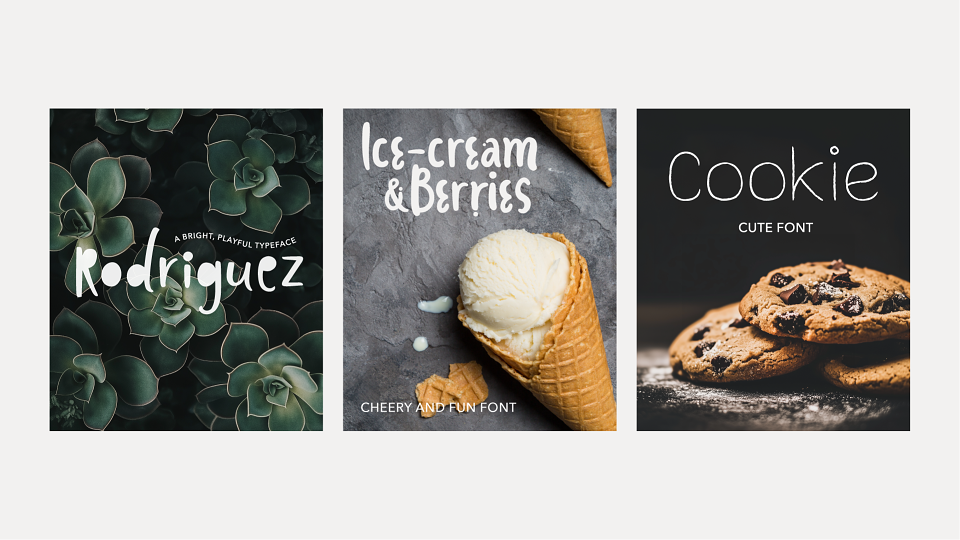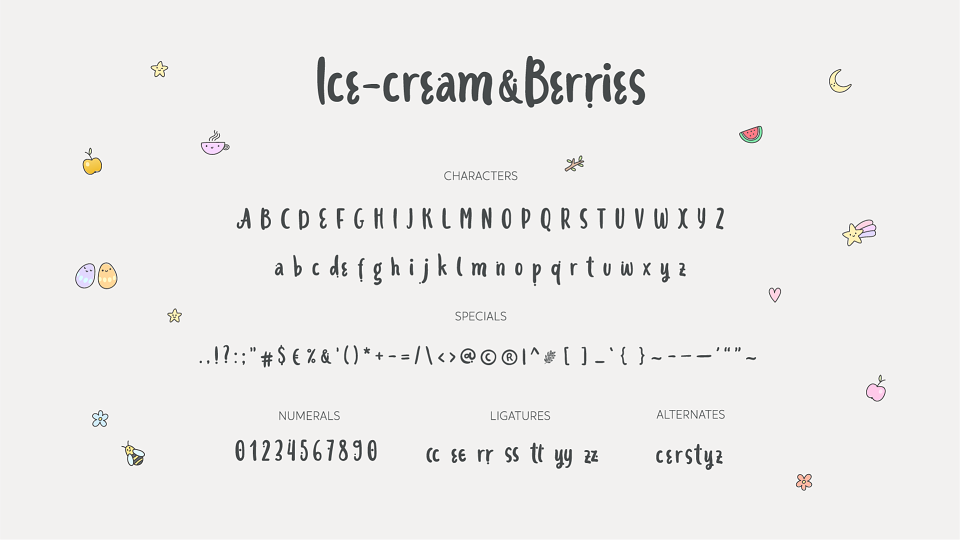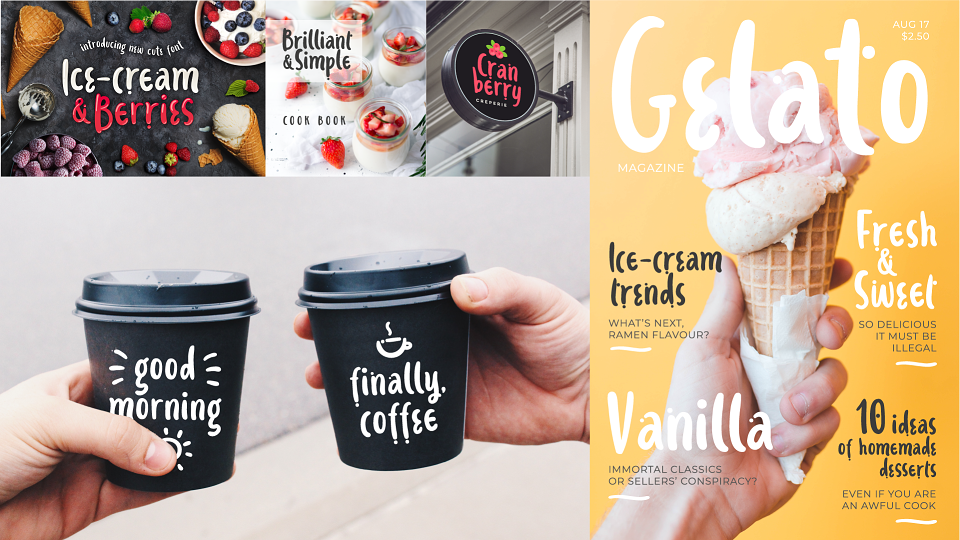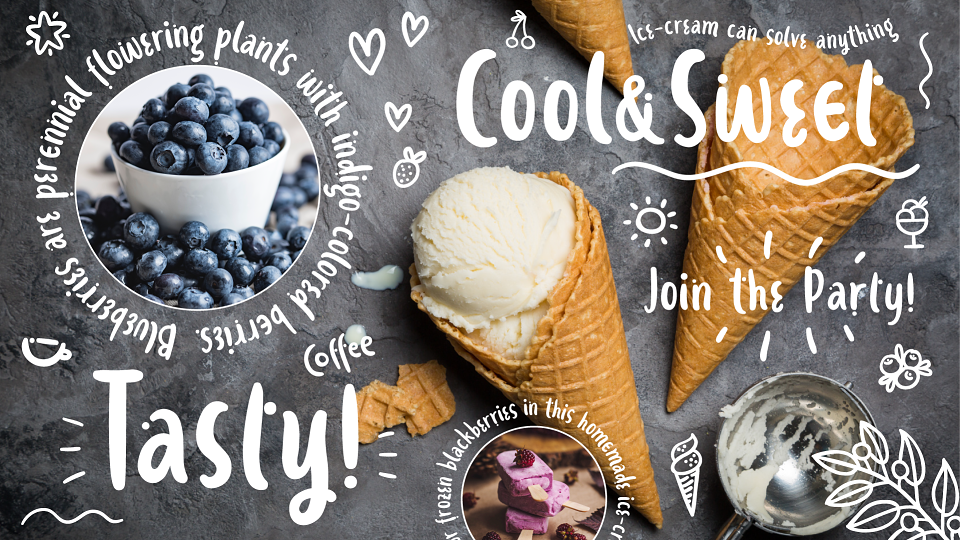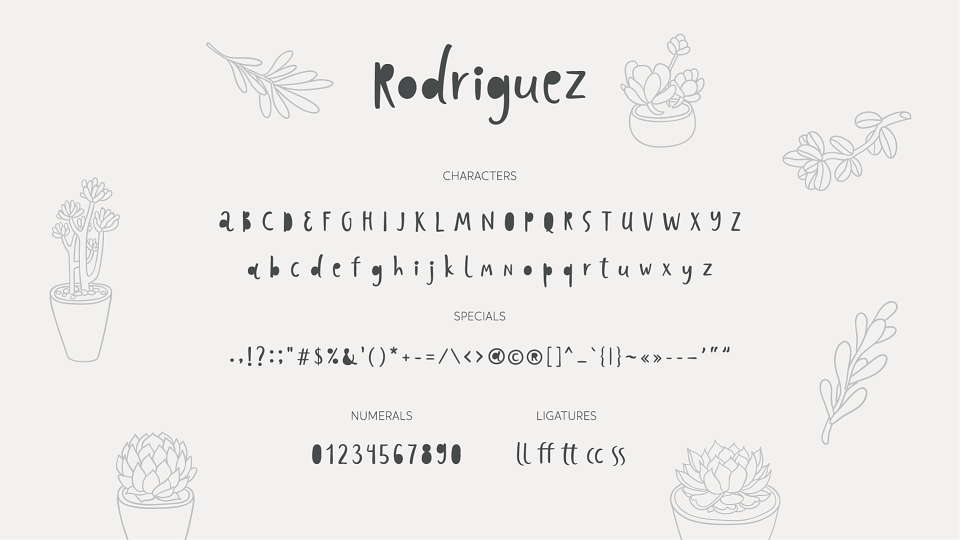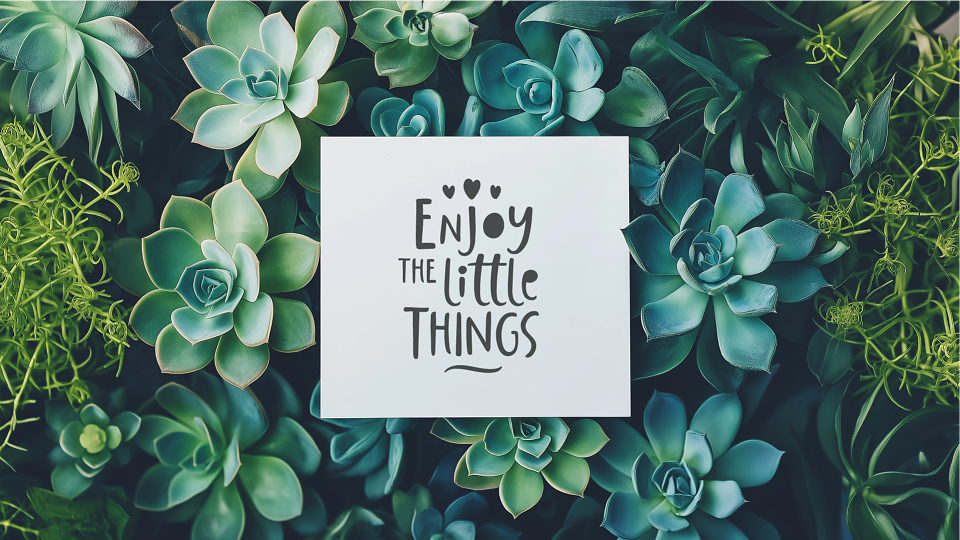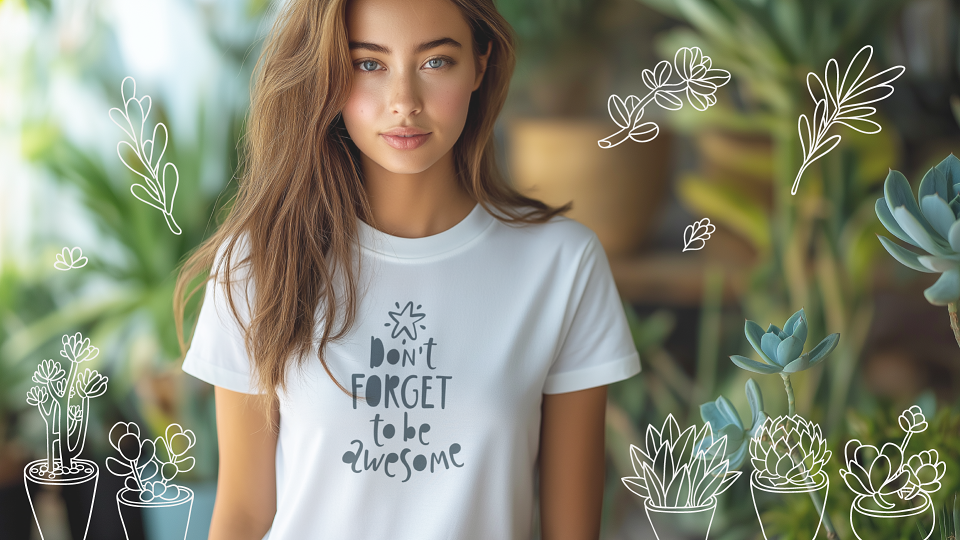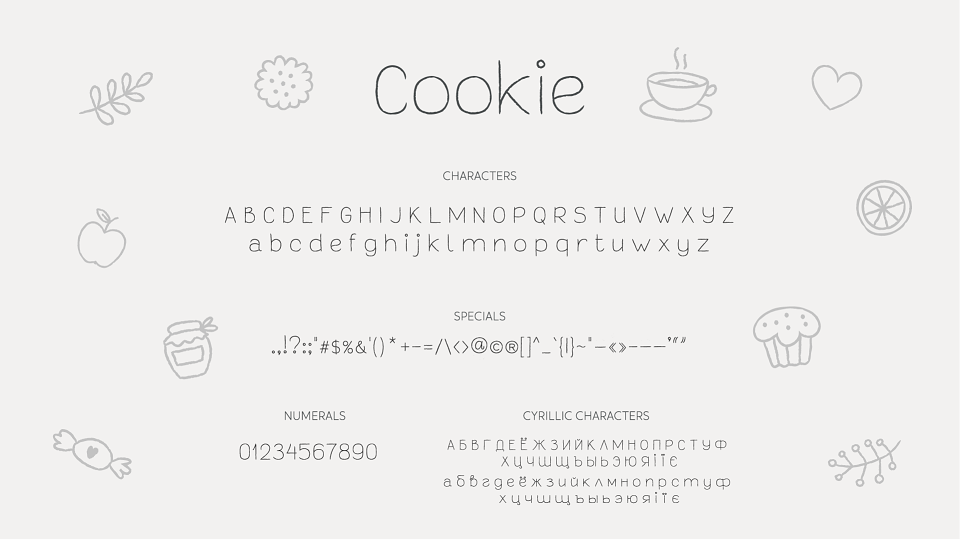
Introducing 3 new, free for download fonts (Rodriguez, Cookie and Ice Cream&Berries) – bright, fun and playful typefaces that are packed with personality! These display fonts are perfect for adding fun to apparel, prints, article headlines, web graphics, lettering compositions, and more! Try them on t-shirts, print materials, or anywhere you want a splash of color and creativity.